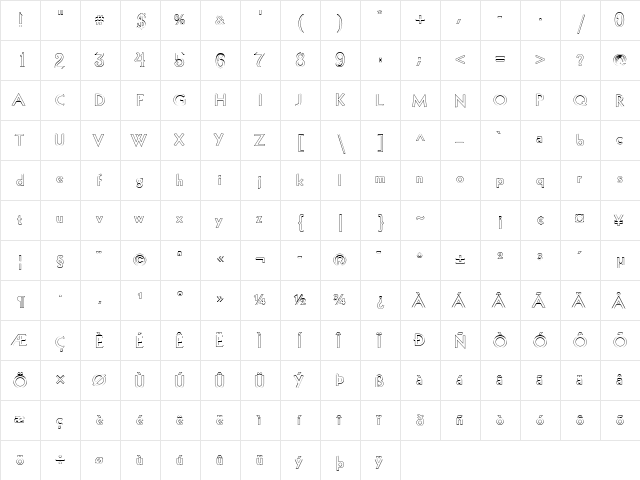
Kufi LT Outline Regular Regular
| Foundry | Linotype GmbH |
| Designer | Georges Dib |
Design Context for Kufi LT Outline Regular Typeface
Kufi LT Outline Regular brings ornamental detail and strong personality to headlines and identities, where visual impact matters more than quiet functionality. Its slender proportions lend an understated elegance to any composition.
Font Pairing: Pair with a clean neutral sans-serif for body copy to let Kufi LT Outline Regular's character lead without overwhelming the composition.
Pro Tip: Use Kufi LT Outline Regular exclusively at display sizes — it was designed to be seen, not read at length. Let a neutral companion handle body copy.